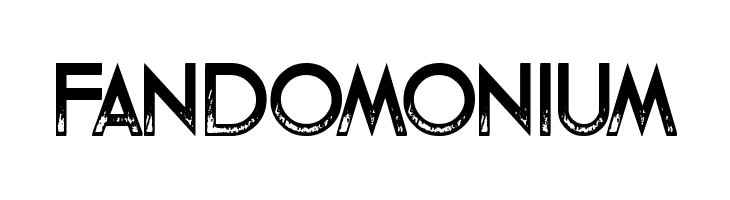
A bold, italicized font with sharp, angular strokes and high contrast, exuding energy and modernity.
A bold, angular font with a dynamic and geometric style.
A playful, informal handwritten font with dynamic strokes and quirky character designs.
A modern, high-contrast font with elegant, elongated characters.
A modern, geometric font with rounded edges and consistent stroke widths.
A modern, geometric font with clean lines and a sleek appearance.
A sleek, modern font with thin lines and geometric shapes.
A bold, geometric font with a strong and modern presence.
A clean, modern font with geometric precision and simplicity.
A bold, modern sans-serif font with clean, geometric lines.
A modern, medium-weight italic font with clean lines and excellent legibility.
A modern, elegant italic font with thin strokes and a sleek design.
A bold, heavy, italic font with a modern and dynamic style.
A sleek, modern, light italic font with a minimalistic design.
A sleek, modern font with thin, uniform strokes and excellent readability.
A bold, modern font with thick, uniform strokes and a geometric influence.
A bold, italic font with a dynamic and energetic style.
A modern, geometric sans-serif font with clean lines and balanced proportions.
A modern, geometric sans-serif font with clean lines and uniform strokes.
A modern italic font with clean lines and consistent stroke width.
A sleek, modern thin italic font with elegant, clean lines.
A high-contrast, elegant font blending modern and vintage styles.
A minimalist, geometric font with thin strokes and a modern aesthetic.
A modern, geometric font with clean lines and a minimalist aesthetic.
A modern, geometric font with clean lines and a minimalist style.
A playful, rounded font with smooth curves and a friendly appearance.
A whimsical, playful font with decorative curls and slender characters.
A playful, bold font with rounded, bubbly characters.
A playful, bold font with rounded, bubbly characters ideal for fun designs.